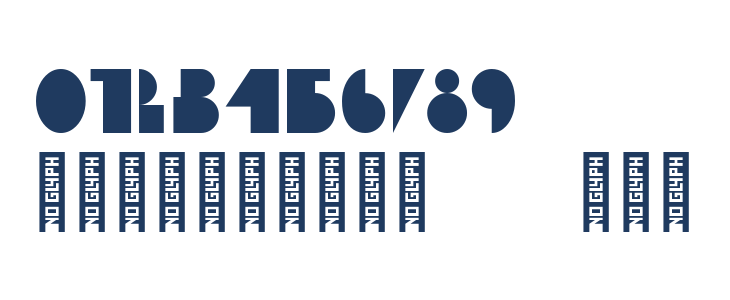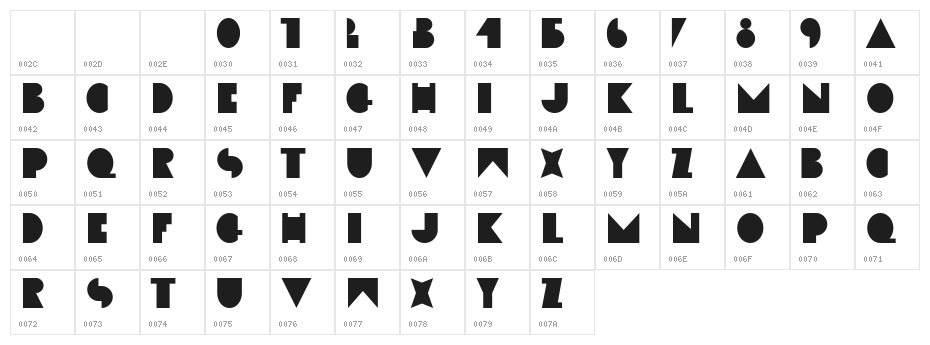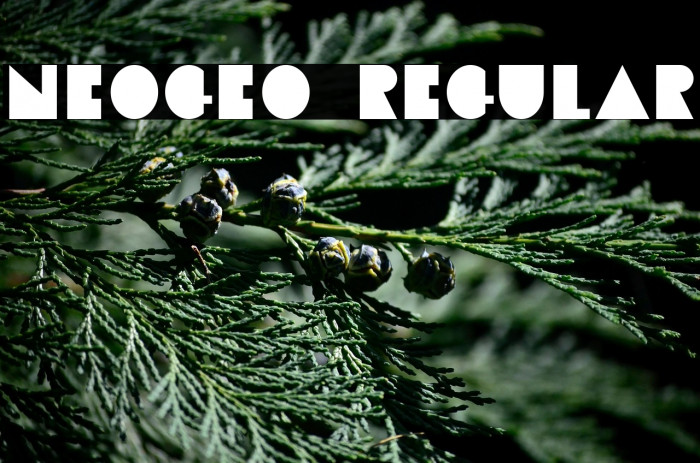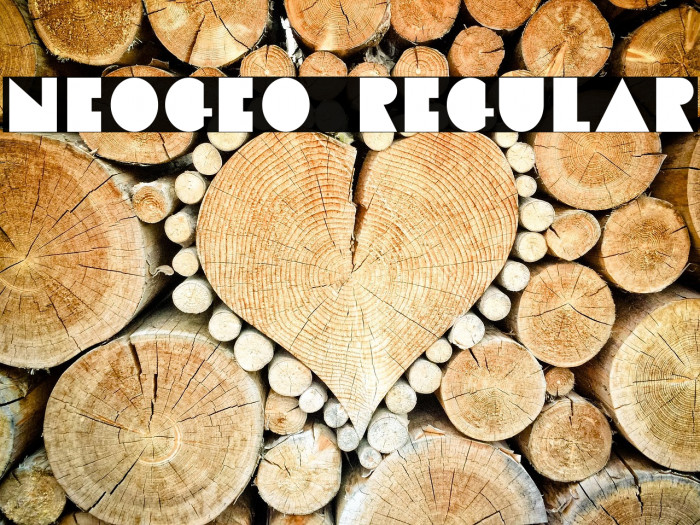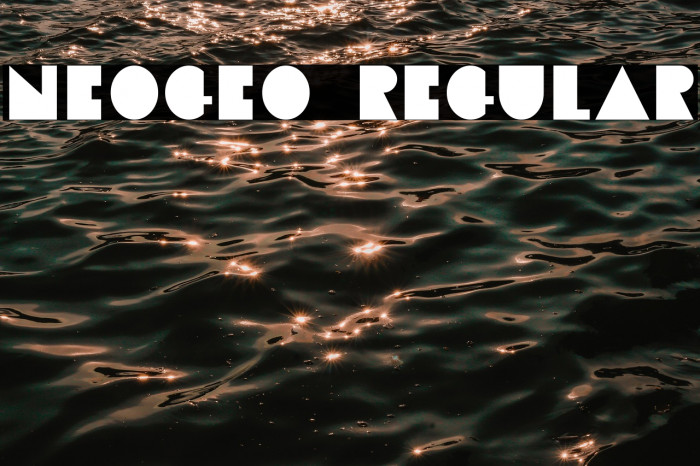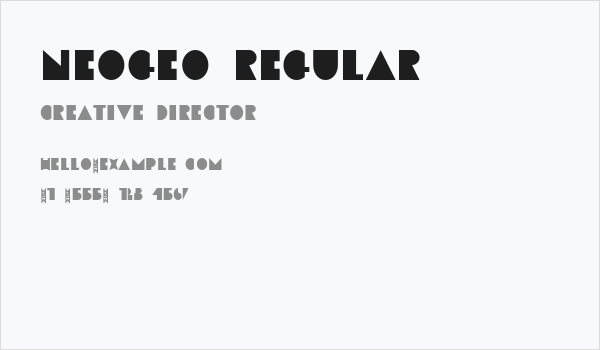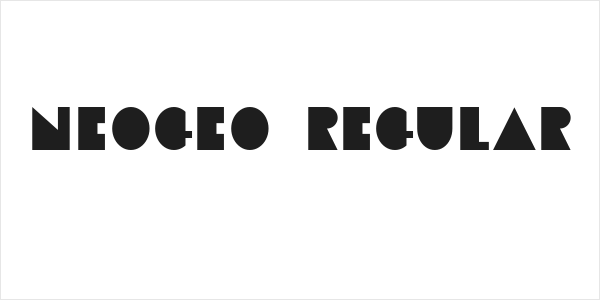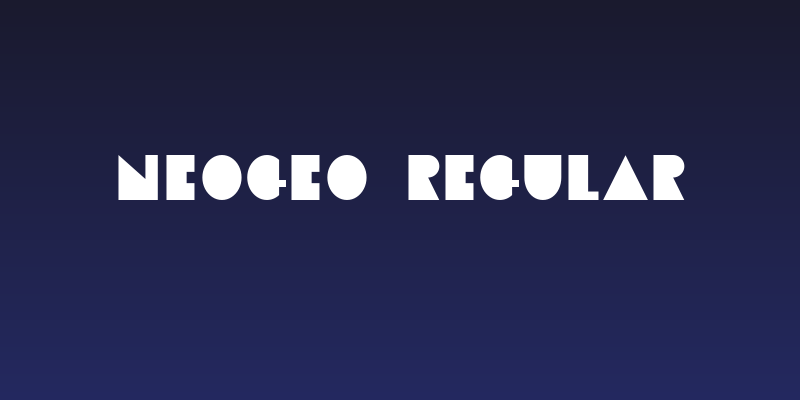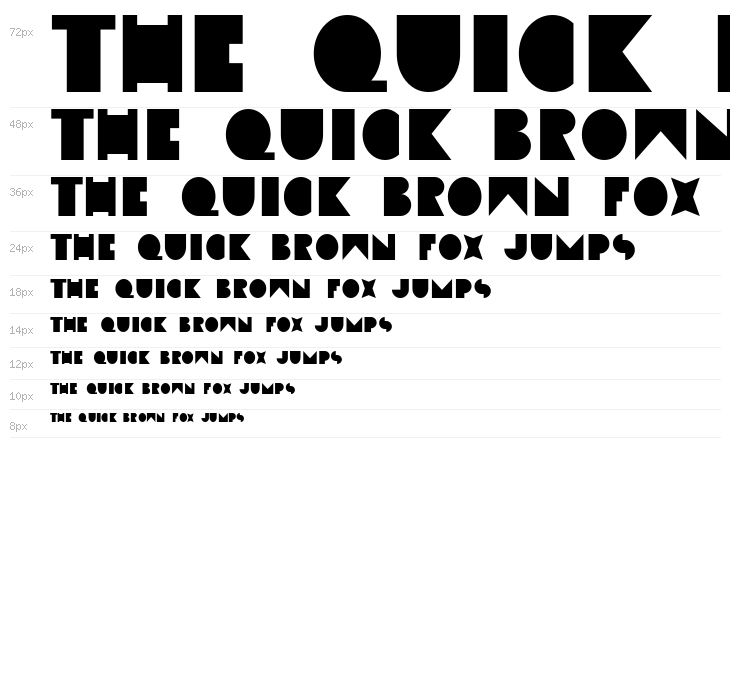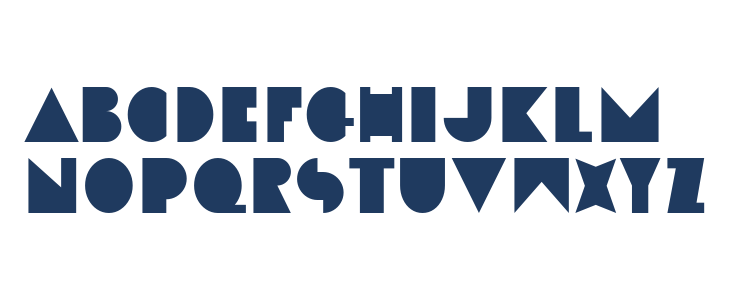
Neogeo Regular Font
Neogeo Regular Description
This font features a bold and geometric design, characterized by sharp angles and clean lines. The uppercase letters are distinct with their triangular and circular elements, creating a futuristic and modern appearance. The numbers maintain the same geometric style, ensuring consistency across all characters. The font's unique style makes it stand out, with a strong emphasis on symmetry and balance. Its boldness and distinctive shapes make it ideal for attention-grabbing designs.